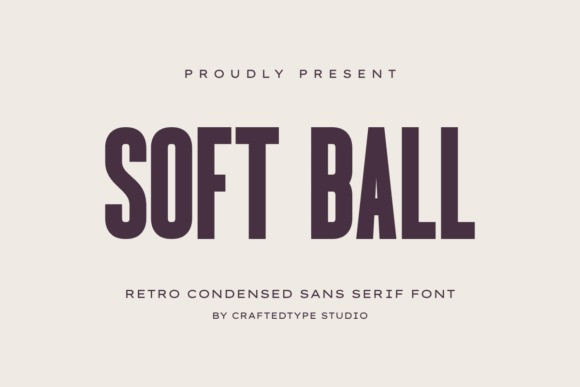
Soft Ball Font
Designer: CraftedType Studio
Soft Ball Font is a retro condensed sans serif font that brings a bold, athletic, and timeless aesthetic to any creative project. Designed with tall and narrow letterforms, this typeface is engineered for high-impact headlines and vintage-inspired branding. It is an ideal choice for the Print on Demand (POD) market, performing exceptionally well on t-shirts, hoodies, posters, and sports merchandise. Graphic designers will find it perfect for logo creation and social media assets, while craft enthusiasts will appreciate its clean, smooth lines that are optimized for cutting machines like Cricut and Silhouette. Whether you are working on a minimalist layout or a bold apparel design, this versatile font provides a professional and energetic look. The package includes OTF and TTF formats and is fully PUA encoded, allowing users to access all characters easily without needing specialized professional software.